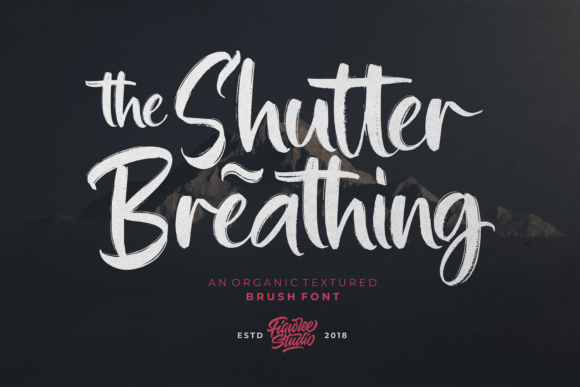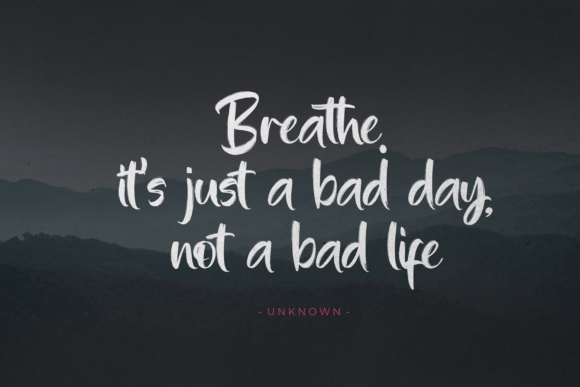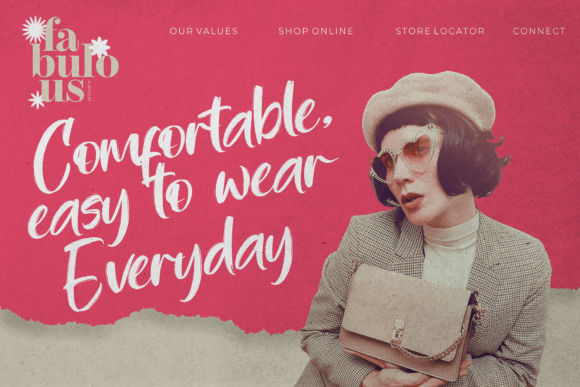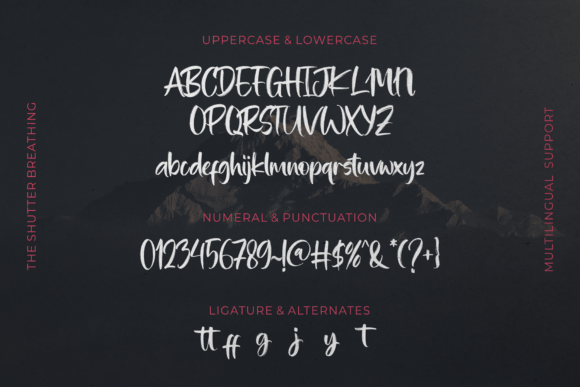
Shutter Breathing Font
About the Shutter Breathing Font
Unleash your creativity with Shutter Breathing Font, a versatile font perfect for a wide range of applications. Introducing Shutter Breathing, the latest addition to our font collection. This stunning organic brush font has been designed with precision and care to bring your creative projects to life.
With its natural and authentic look, Shutter Breathing is perfect for any project that requires a touch of originality and uniqueness. From branding and marketing materials to social media posts and other creative projects, this font is versatile and perfect for all your needs.
Crafted by our team of expert designers, Shutter Breathing is a font that breathes life into your projects. Its hand-drawn design and organic brush strokes give it a natural and authentic feel, making it stand out from the crowd.
Shutter Breathing Font Usage Examples
Shutter Breathing Font Example